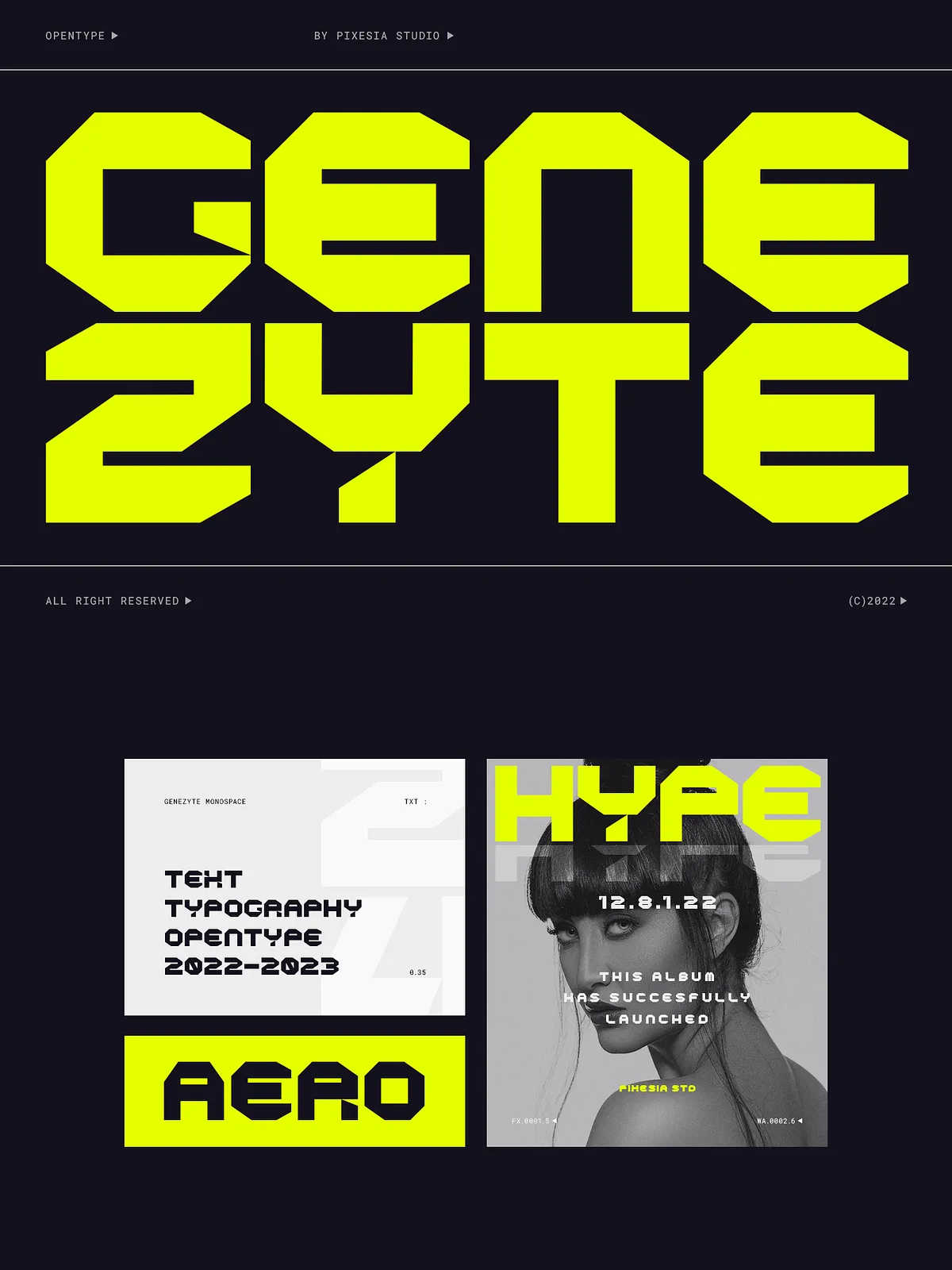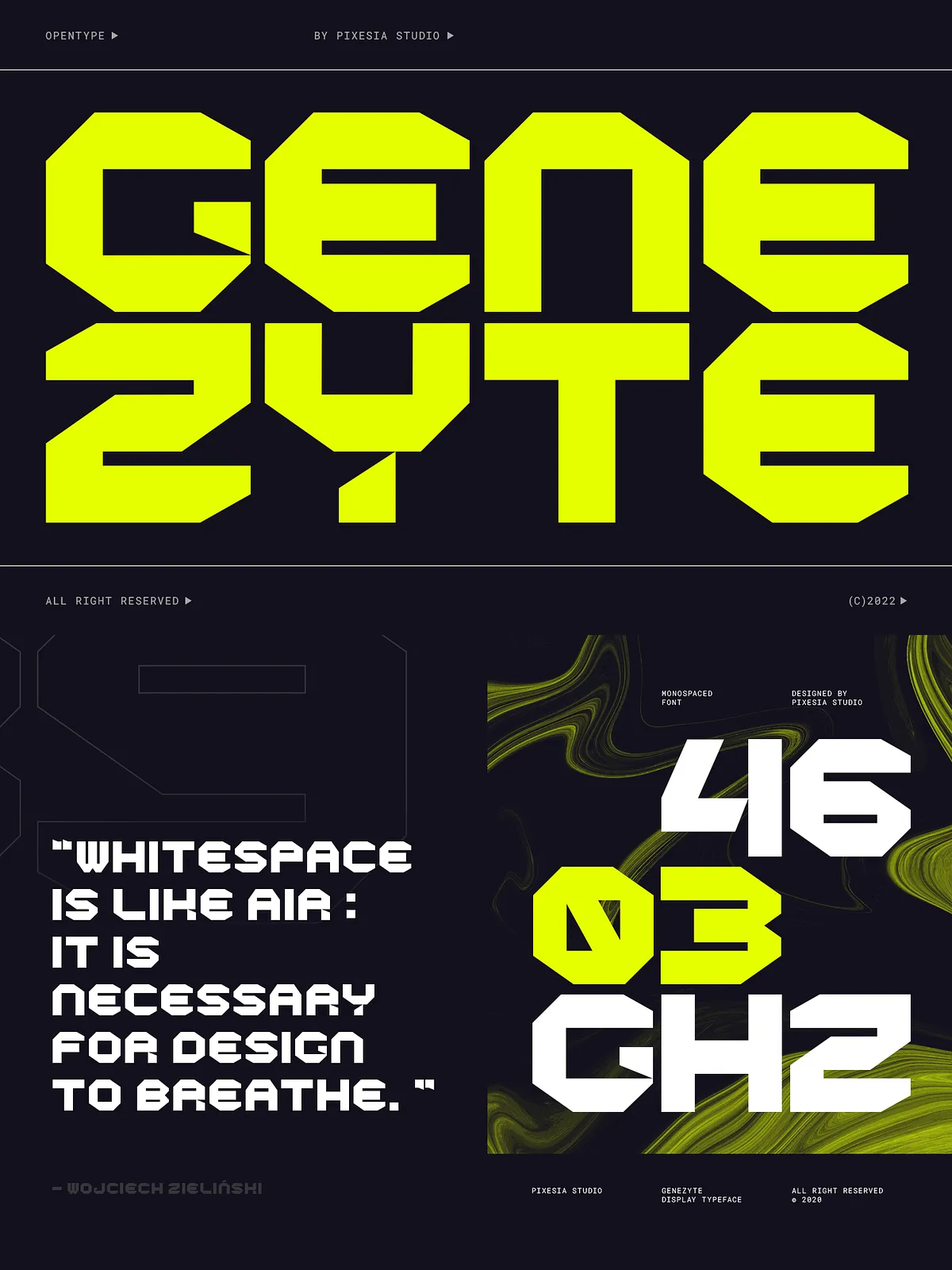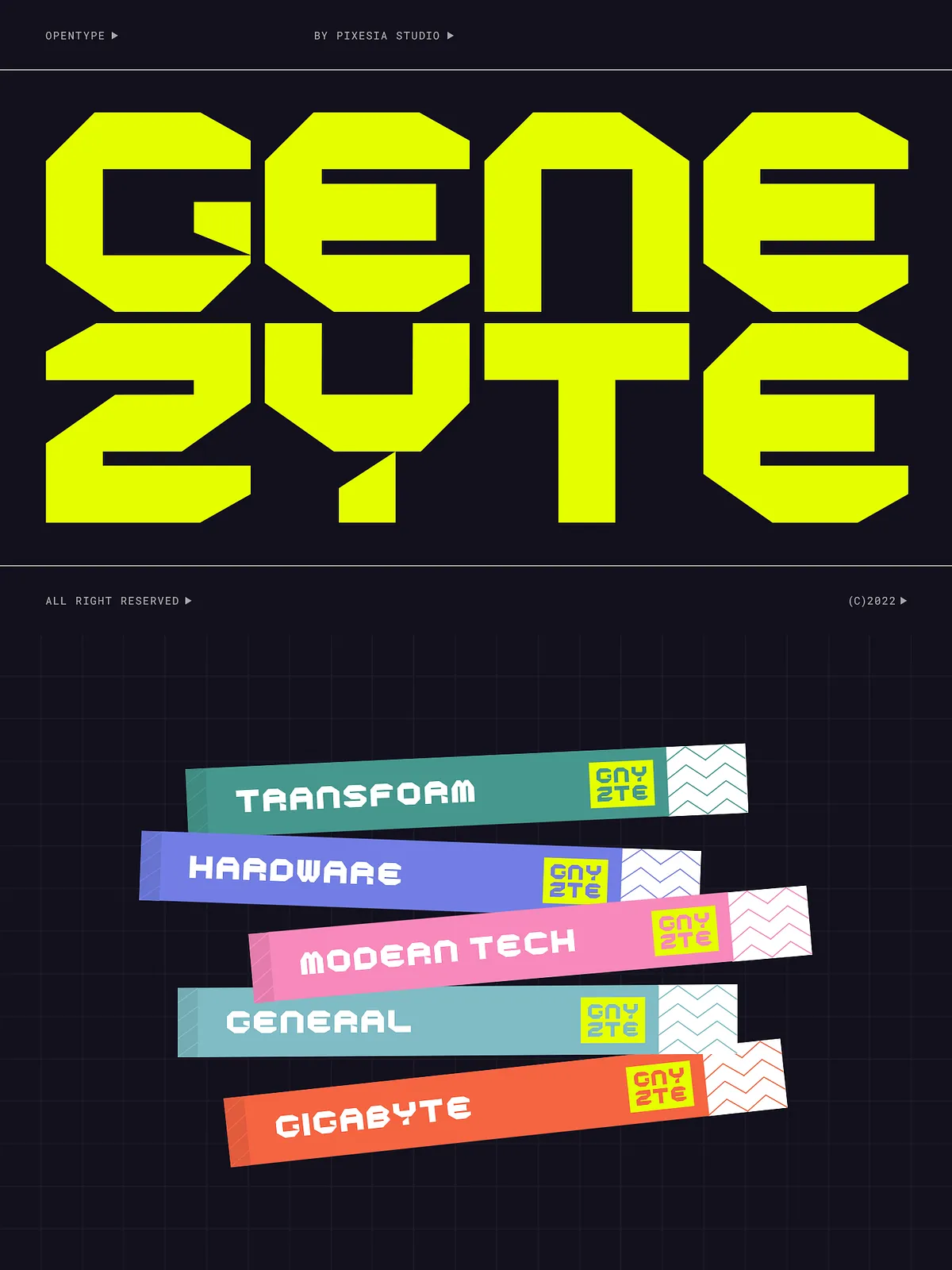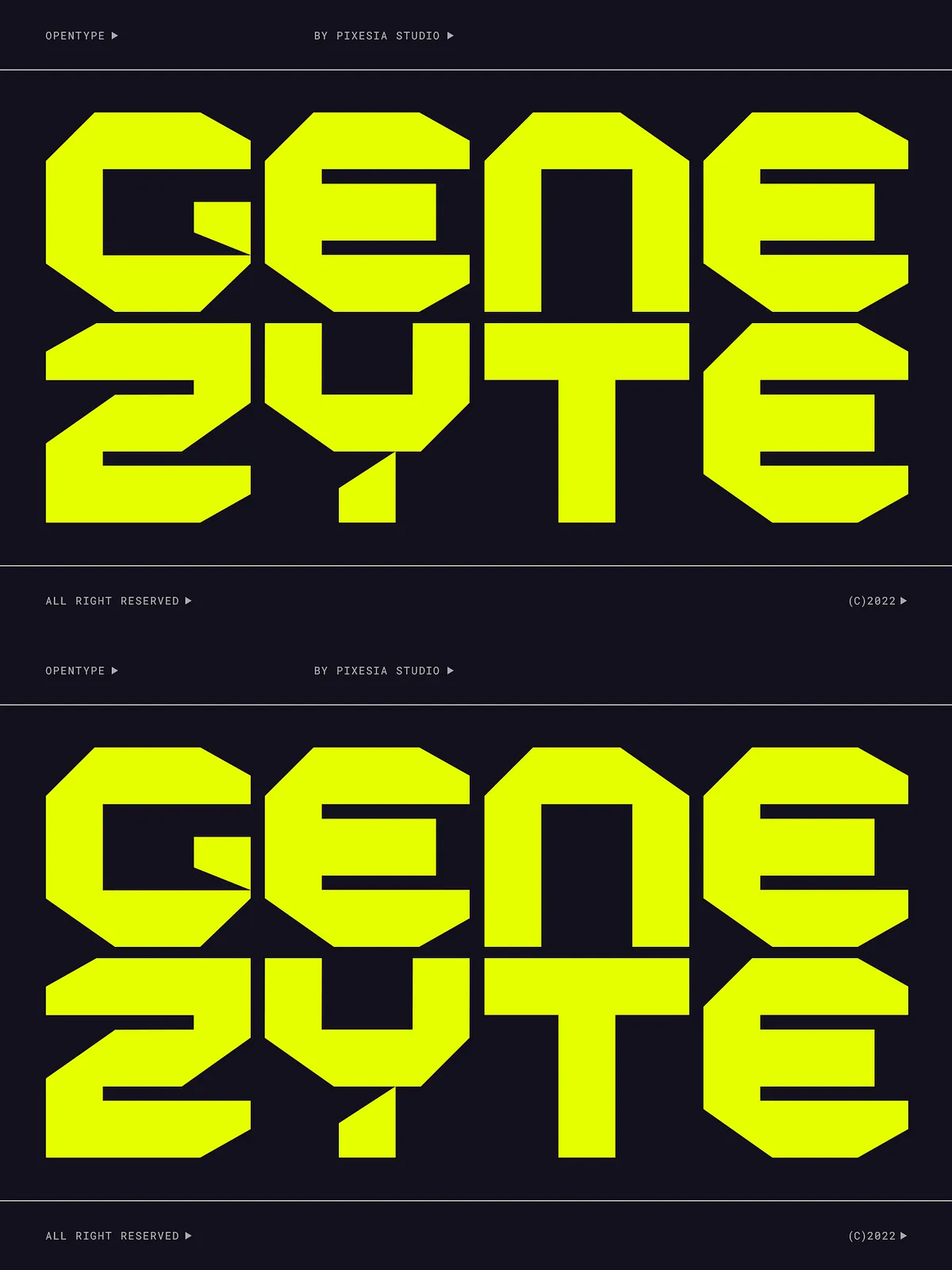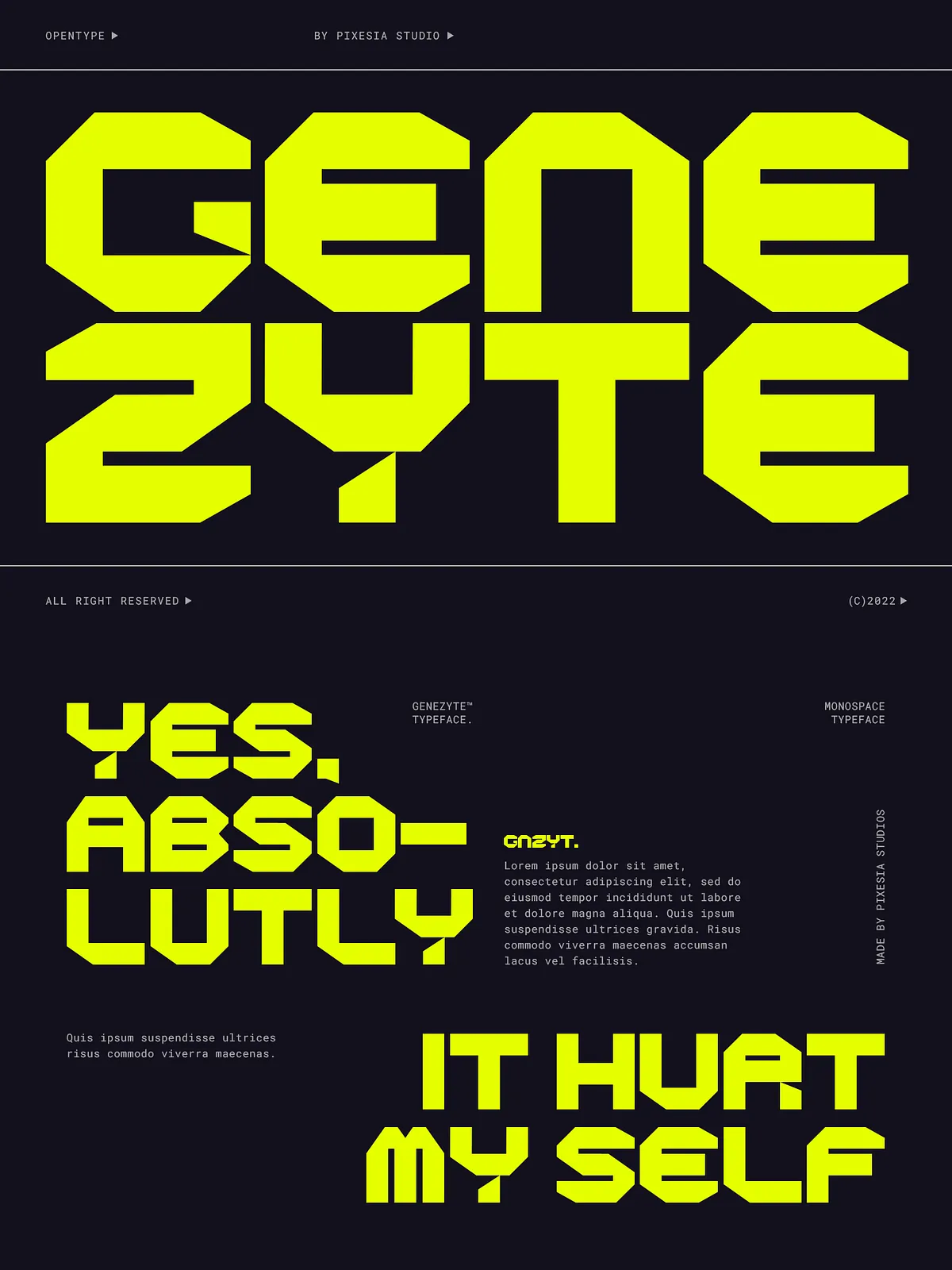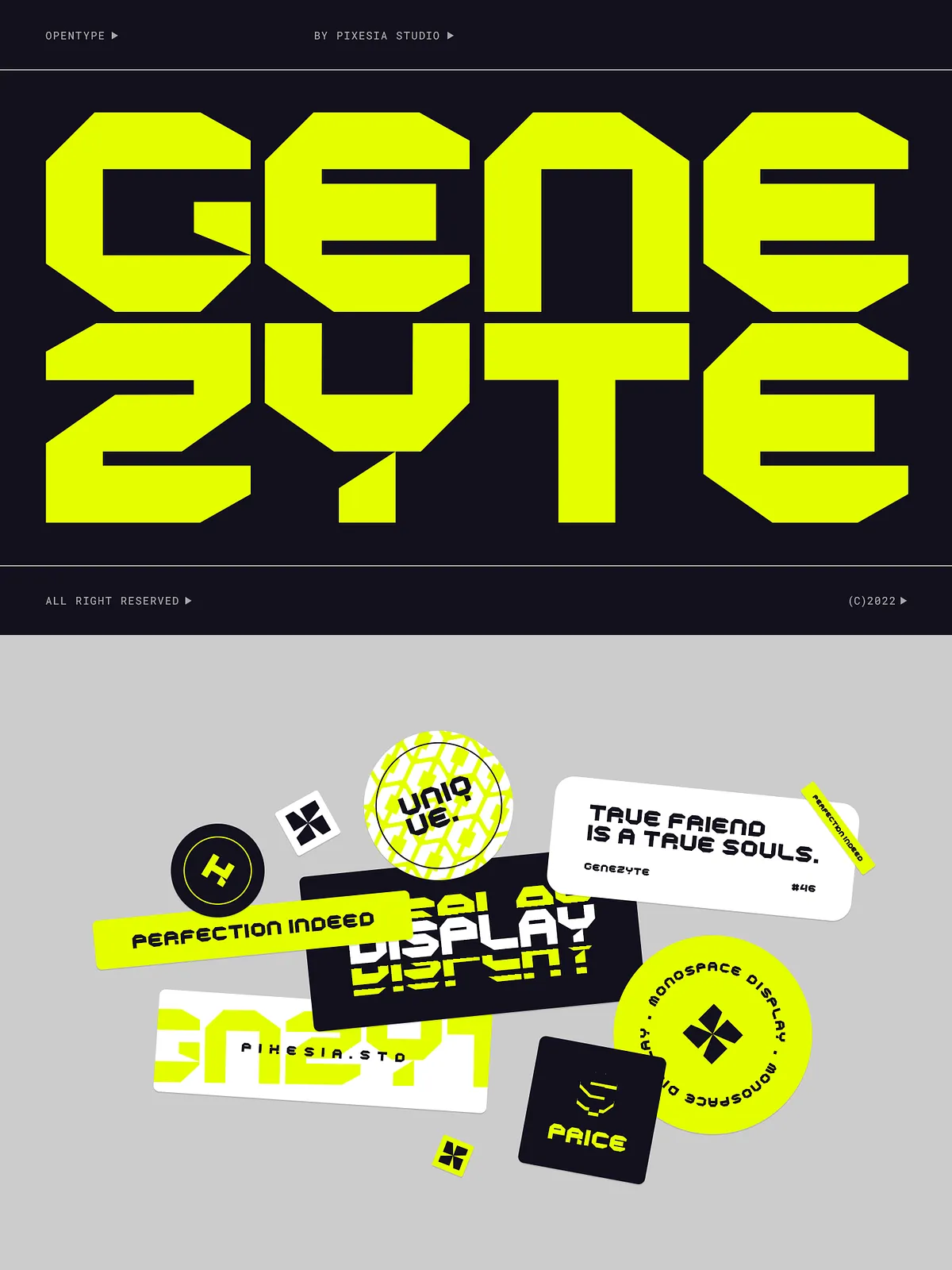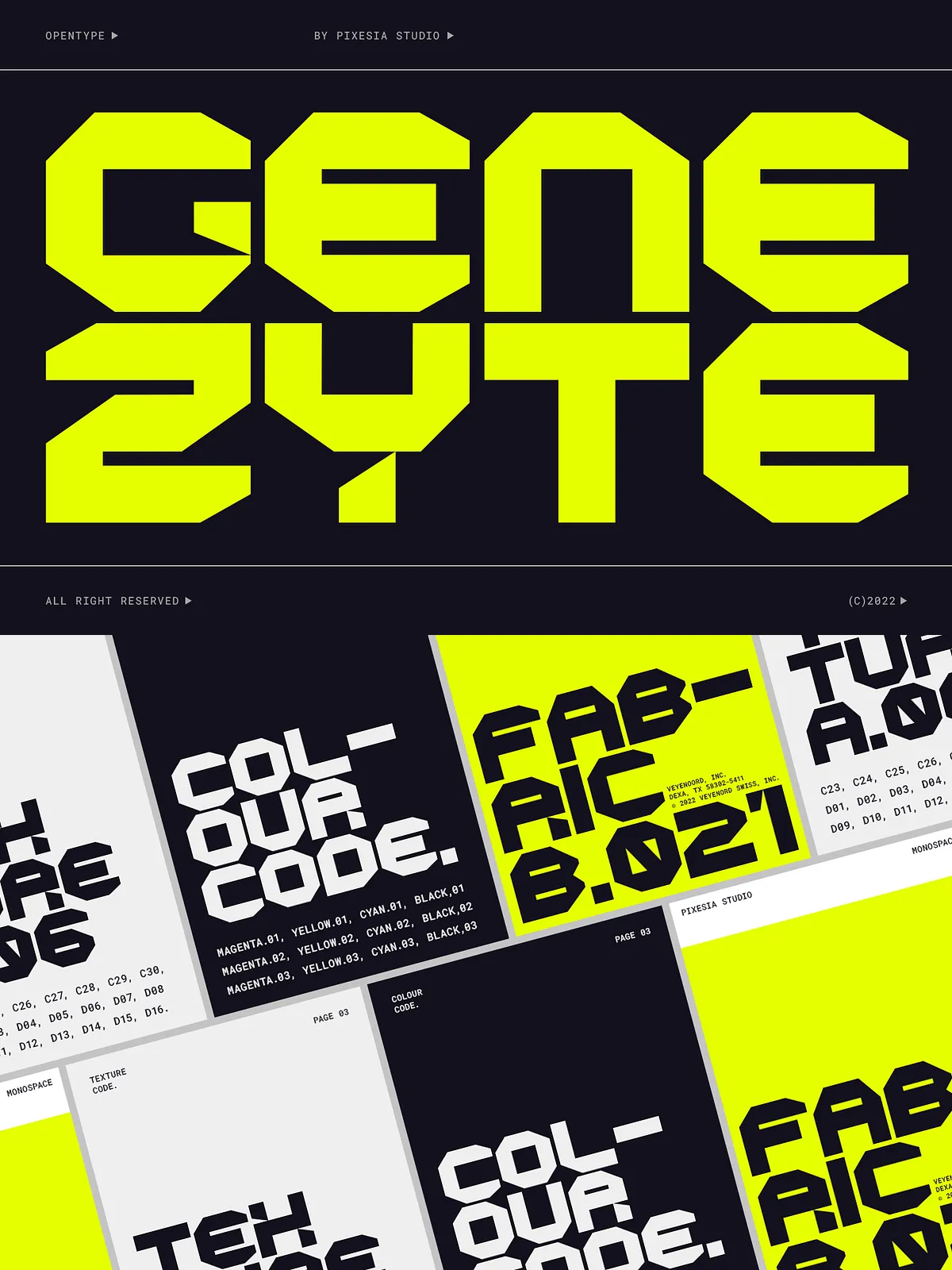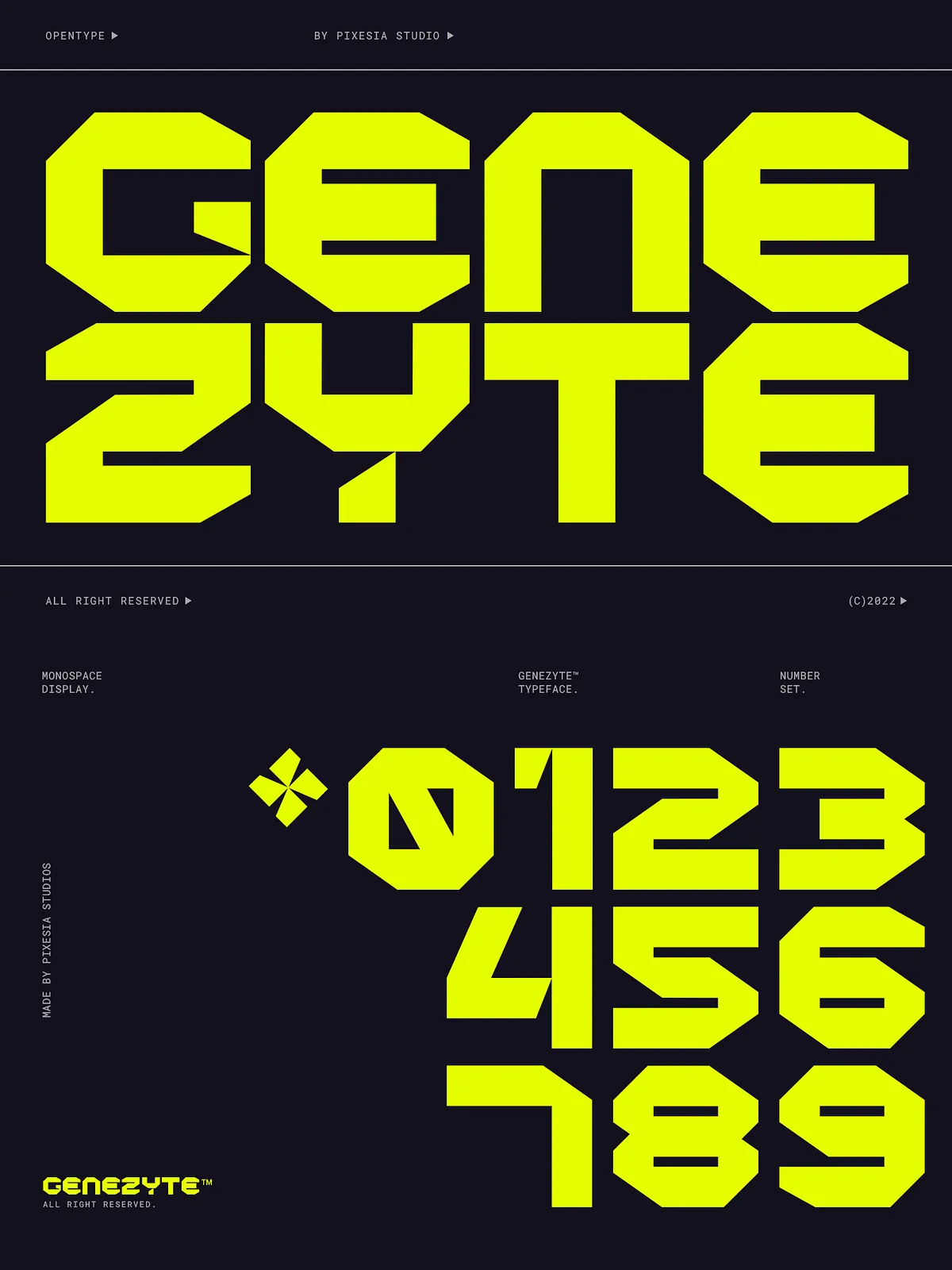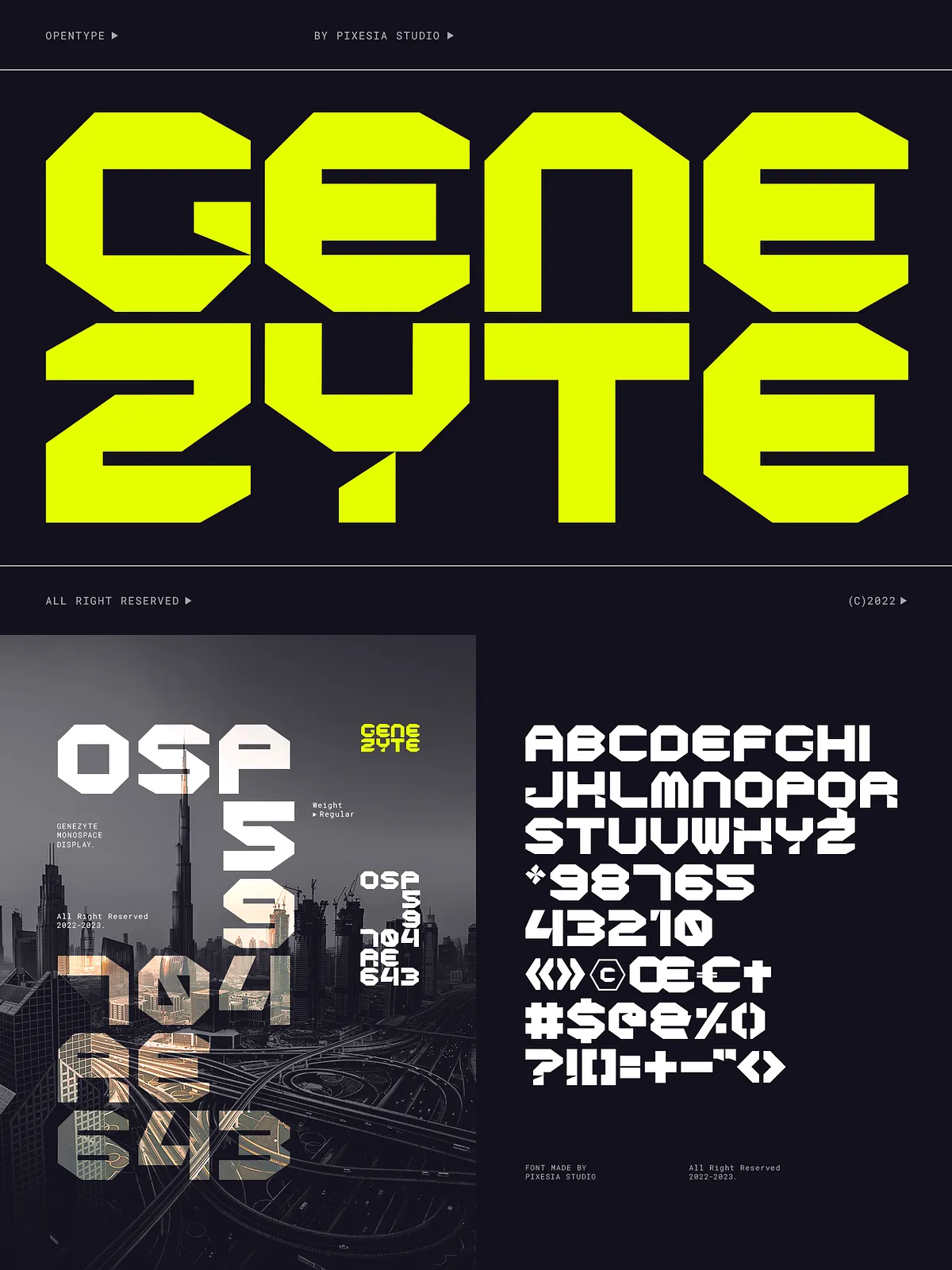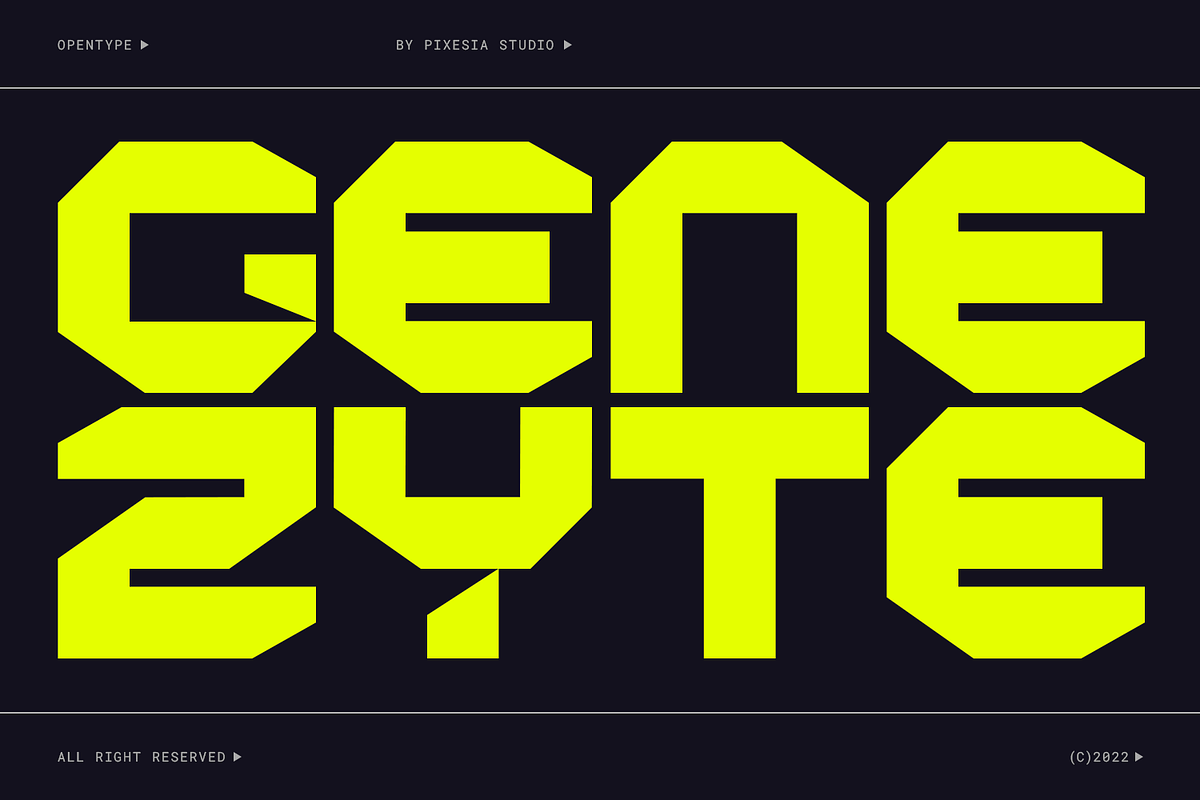
Introducing Genezyte — a cutting-edge monospaced display font designed for creators who refuse to blend in. With its razor-sharp lines, geometric precision, and futuristic presence, Genezyte transforms any design into a statement of modern sophistication. From high-impact headlines to futuristic logos, this font doesn’t just convey text — it commands visual authority.
Built for impact, Genezyte thrives in environments where clarity, structure, and style are non-negotiable. Whether you’re crafting a brand identity, designing a tech startup’s interface, or producing a high-energy editorial layout, Genezyte delivers unmatched visual consistency and bold expression.
Engineered for Precision, Designed for Impact
Every character in Genezyte is carefully crafted to maintain uniform width, sharp edges, and clean stroke contrast. This monospaced architecture ensures perfect alignment, making it ideal for code-like text, terminal displays, data visualizations, and layout-heavy formats where spacing and symmetry matter.
Key Features That Set Genezyte Apart
- All Caps Design — Projects strength, confidence, and modernity. Ideal for logos, headlines, and minimalist branding.
- Full Numerical & Punctuation Support — Includes digits, symbols, and punctuation marks for professional-grade text formatting in labels, UI elements, and technical documentation.
- Multilingual Character Set — Supports Latin-based scripts, enabling global usability across international campaigns and multilingual content.
Where Genezyte Shines
Genezyte isn’t just a font — it’s a design tool for the modern era. Its tech-forward aesthetic makes it a natural fit for industries that value innovation, precision, and visual clarity.
Perfect for Tech & Digital Branding
Startups, techwear labels, AI products, and digital services can use Genezyte to establish a cutting-edge identity. Its clean, geometric style communicates professionalism and forward-thinking vision — the perfect match for modern digital ecosystems.
High-Impact Logo & Headline Design
Create bold logos, editorial titles, and presentation slides that grab attention from the first glance. Genezyte’s strong vertical rhythm and consistent proportions deliver visual rhythm and impact, even at large sizes.
UI, Web, and App Interfaces
Use Genezyte in dashboards, navigation menus, buttons, or code examples within web and mobile applications. Its monospaced nature ensures consistent alignment and easy readability in environments where technical precision is crucial.
Print & Packaging Design
From product labels to packaging inserts, museum catalogs to event invitations, Genezyte brings a sleek, technical elegance that elevates every printed piece. Its sharp details remain crisp at any scale, maintaining quality even on small labels or oversized billboards.
- Optimized for both screen and print — remains sharp, clean, and readable across all mediums.
- Includes full character set for immediate use — no missing glyphs or workarounds.
Transform Your Creative Vision with Genezyte
This is more than a font — it’s a design revolution. Genezyte empowers you to move beyond generic typography and embrace a style that’s bold, intentional, and unmistakably modern.
Whether you’re launching a new brand, designing a digital experience, or creating a visual masterpiece, Genezyte gives your work the clean, futuristic edge it deserves.